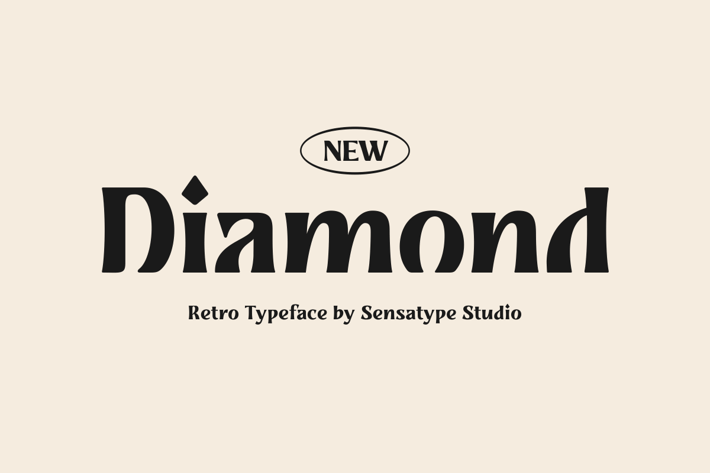
Diamond - Retro Typeface
Diamond typeface is an old-style, retro, unique, and versatile vintage typeface with Special character, ready for branding and stand out. It is a display typeface with a unique curve that perfect for branding projects, logo, wedding designs, social media posts, advertisements, product packaging, product designs, label, photography, watermark, invitation, stationery, and any projects, it makes with a high level of legibility.